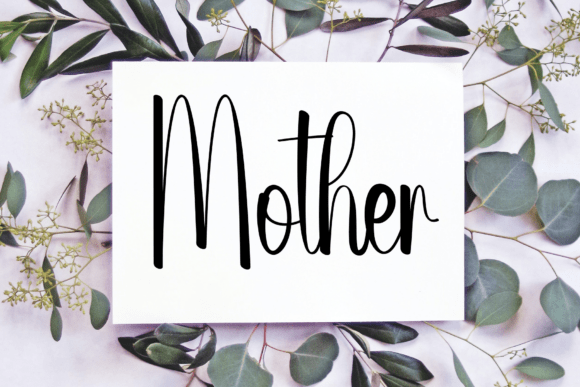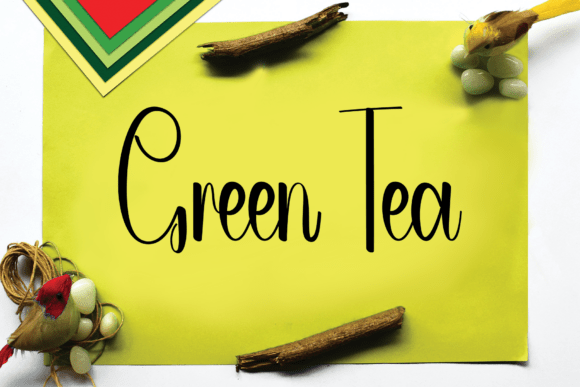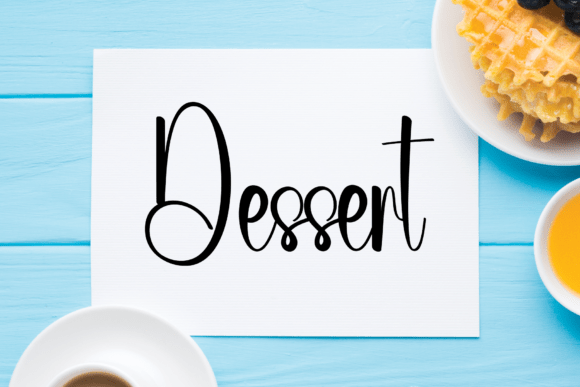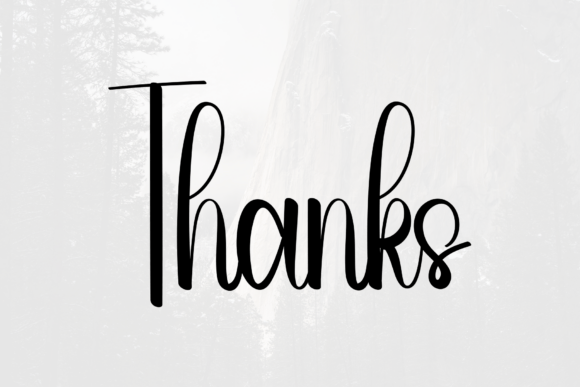
Gracelia Font: The Ultimate Choice for Elegant and Casual Designs
Are you a designer or crafter looking for a font that exudes luxury, elegance, and a touch of casualness? Look no further than Gracelia Font, a beautiful handwritten font that is sure to elevate your designs to the next level. In this article, we’ll dive into the world of Gracelia Font, exploring its unique features, uses, and benefits.
What is Gracelia Font?
Gracelia Font is a stunning handwritten font that looks like it was drawn with a marker. Its relaxed and sporty feel makes it perfect for a wide range of design applications, from branding and logos to wedding supplies, greeting cards, and marketing promotions. With Gracelia Font, you can add a touch of sophistication and elegance to your designs while still maintaining a casual and approachable vibe.
Key Features of Gracelia Font
So, what sets Gracelia Font apart from other fonts? Here are some of its key features:
- Handwritten with a marker feel: Gracelia Font has a unique, hand-drawn quality that gives it a personal and human touch.
- Relaxed and sporty feel: This font is perfect for designs that need to convey a sense of casual elegance and sophistication.
- Luxurious and elegant: Despite its casual feel, Gracelia Font is undeniably luxurious and elegant, making it perfect for high-end designs.
- Versatile: Gracelia Font can be used for a wide range of design applications, from branding and logos to wedding supplies, greeting cards, and marketing promotions.
Uses of Gracelia Font
Gracelia Font is an incredibly versatile font that can be used for a wide range of design applications. Here are some of the most popular uses of this stunning font:
- Branding and logos: Gracelia Font is perfect for creating unique and memorable brand identities that exude elegance and sophistication.
- Wedding supplies: From wedding invitations to wedding stationery, Gracelia Font is a popular choice for couples looking for a romantic and elegant font.
- Greeting cards: Whether you’re creating birthday cards, Christmas cards, or thank-you cards, Gracelia Font is a great choice for adding a personal touch.
- Fashion and lookbooks: Gracelia Font is a popular choice for fashion designers and brands looking to add a touch of elegance and sophistication to their lookbooks and marketing materials.
- Marketing promotions: From brochures to flyers, Gracelia Font is a great choice for creating marketing materials that need to convey a sense of luxury and elegance.
Benefits of Using Gracelia Font
So, why should you choose Gracelia Font for your designs? Here are some of the benefits of using this stunning font:
- Unique and memorable: Gracelia Font is a unique and memorable font that will help your designs stand out from the crowd.
- Elegant and sophisticated: This font exudes elegance and sophistication, making it perfect for high-end designs.
- Versatile: Gracelia Font can be used for a wide range of design applications, making it a great addition to any designer’s font library.
- Easy to read: Despite its elegant and sophisticated feel, Gracelia Font is easy to read and understand, making it perfect for designs that need to communicate a message.
In conclusion, Gracelia Font is a stunning handwritten font that is perfect for designers and crafters looking to add a touch of elegance and sophistication to their designs. With its relaxed and sporty feel, luxurious and elegant vibe, and versatility, Gracelia Font is an excellent choice for a wide range of design applications. Whether you’re creating branding and logos, wedding supplies, greeting cards, or marketing promotions, Gracelia Font is sure to elevate your designs to the next level.